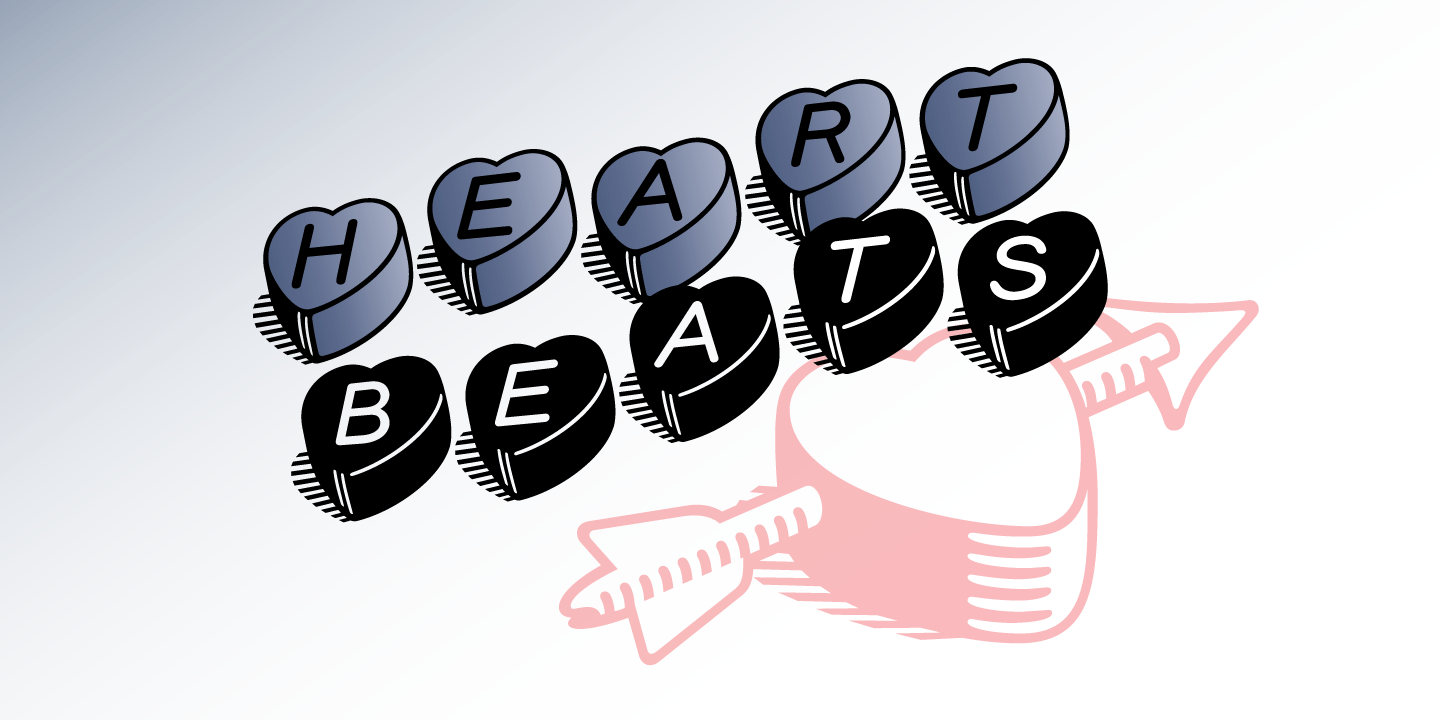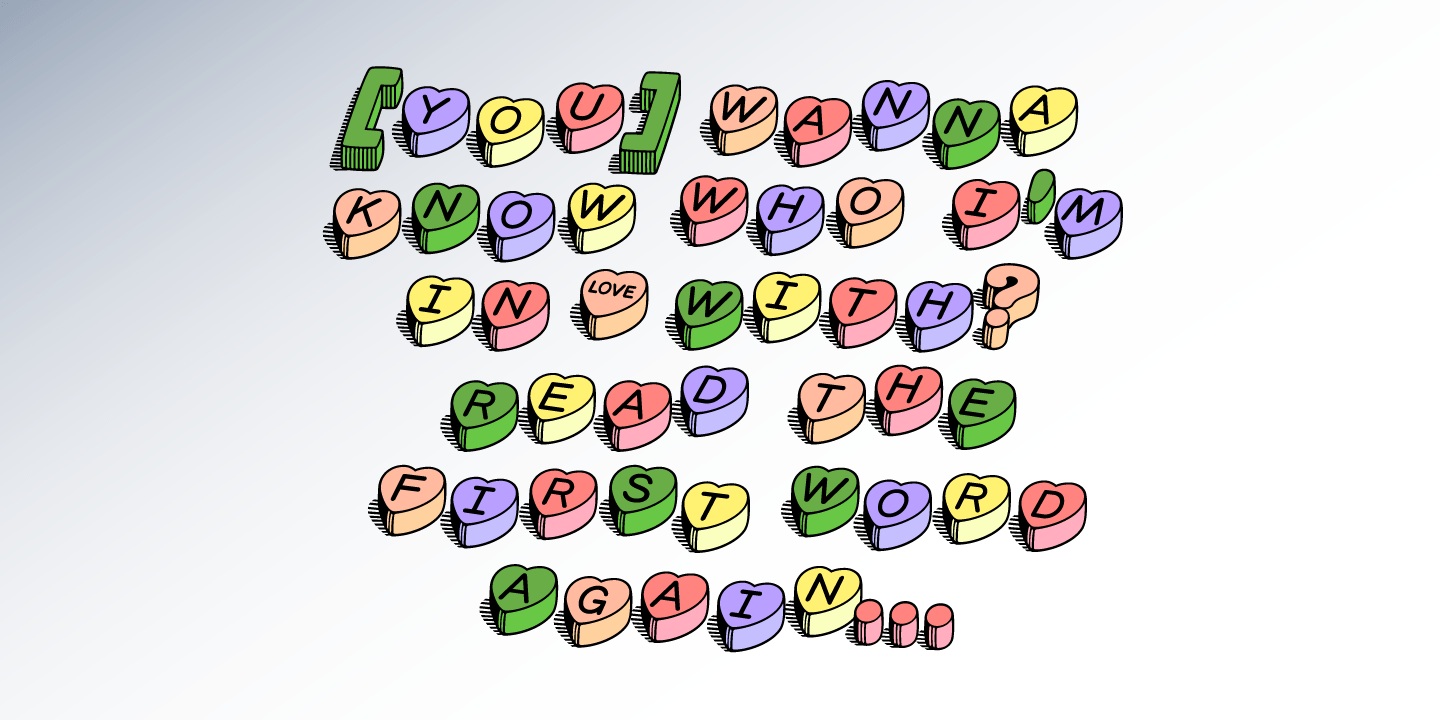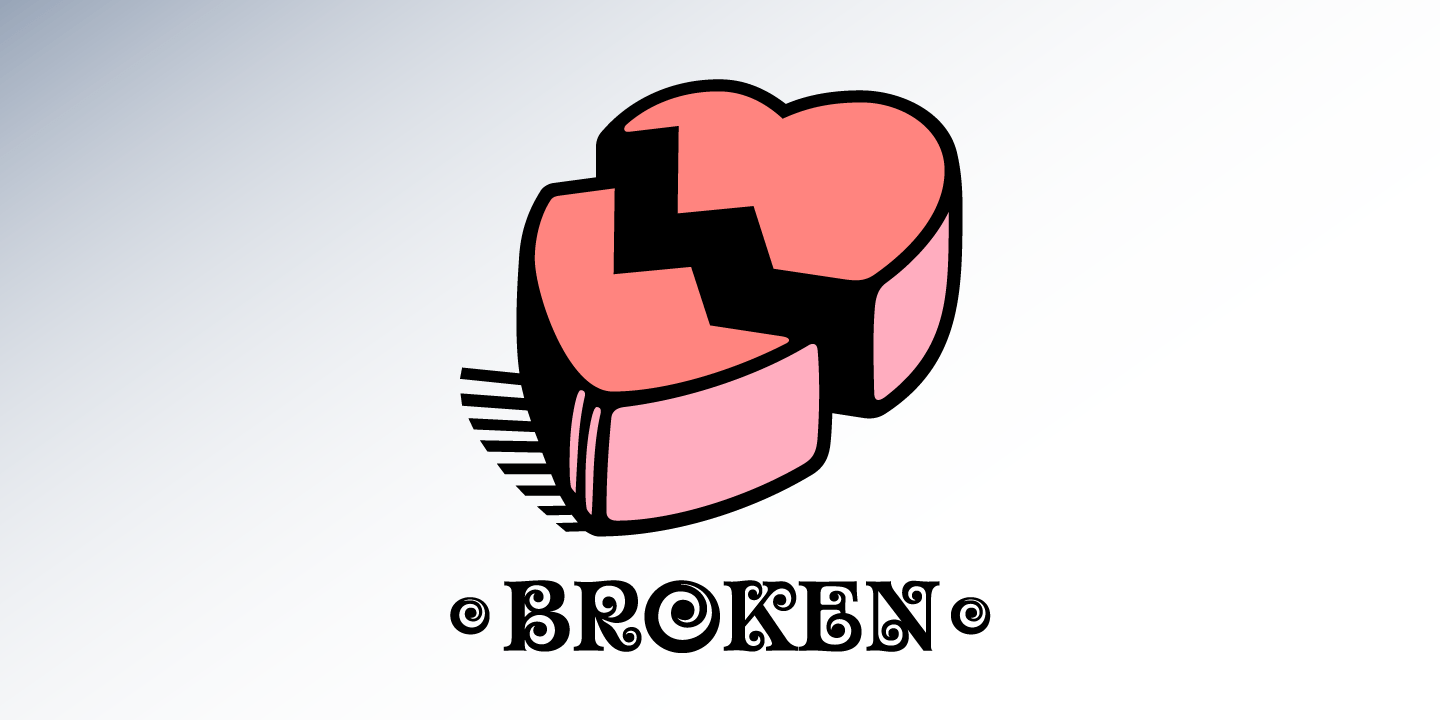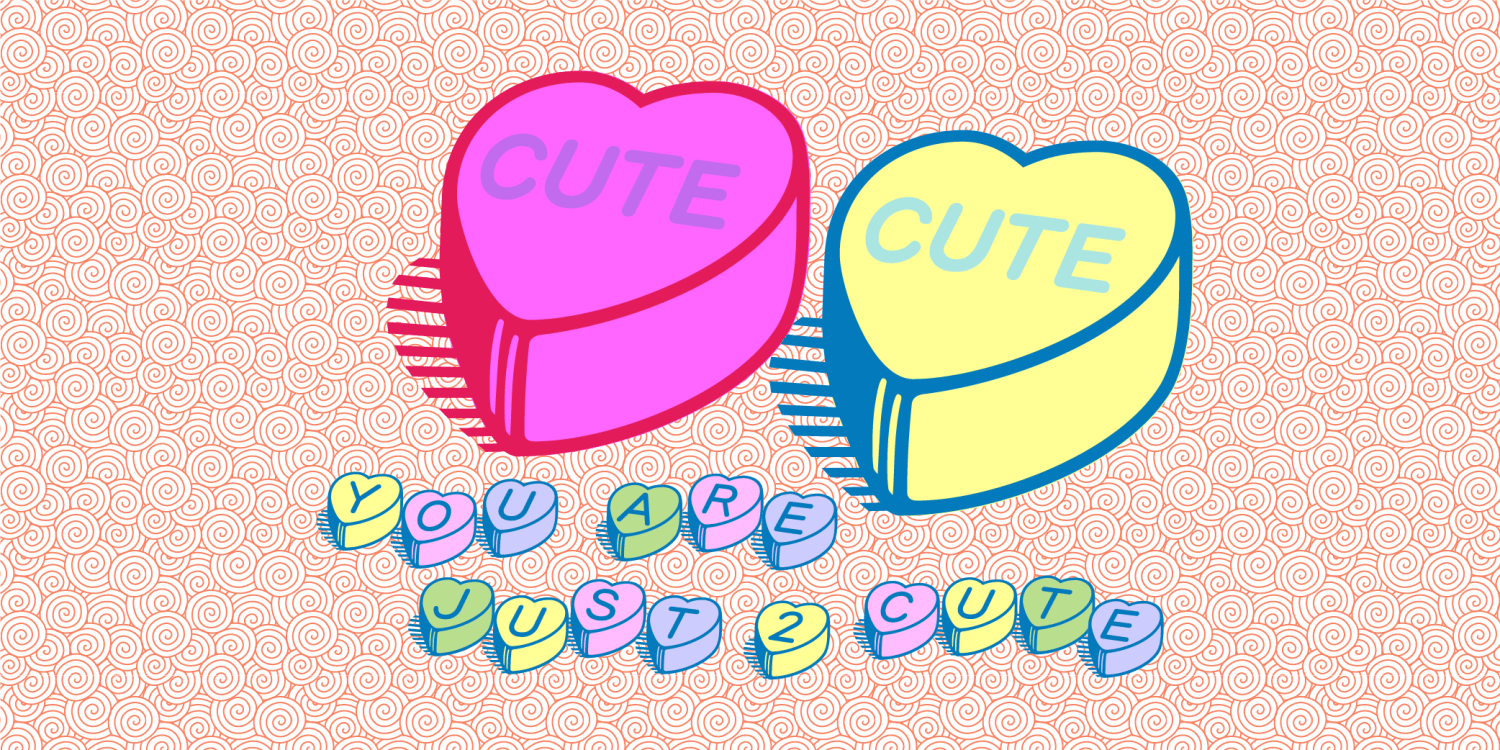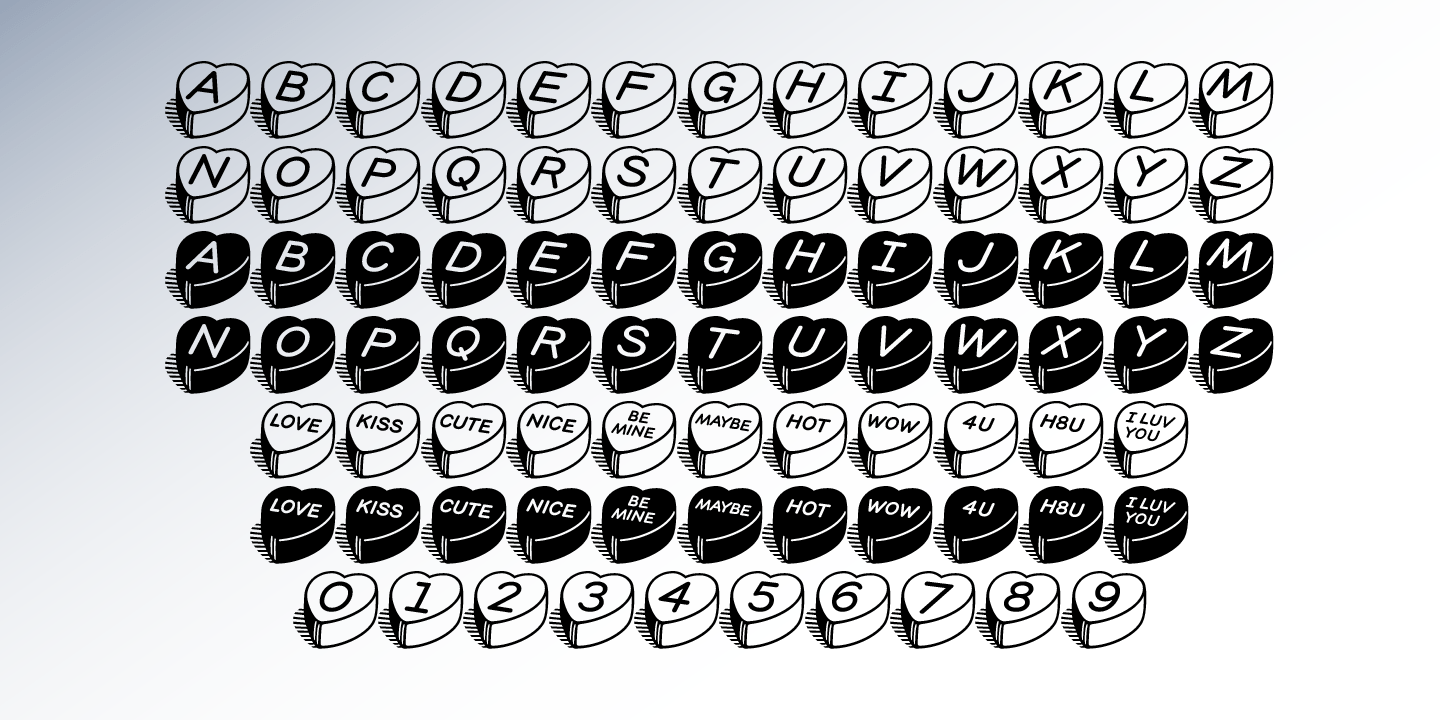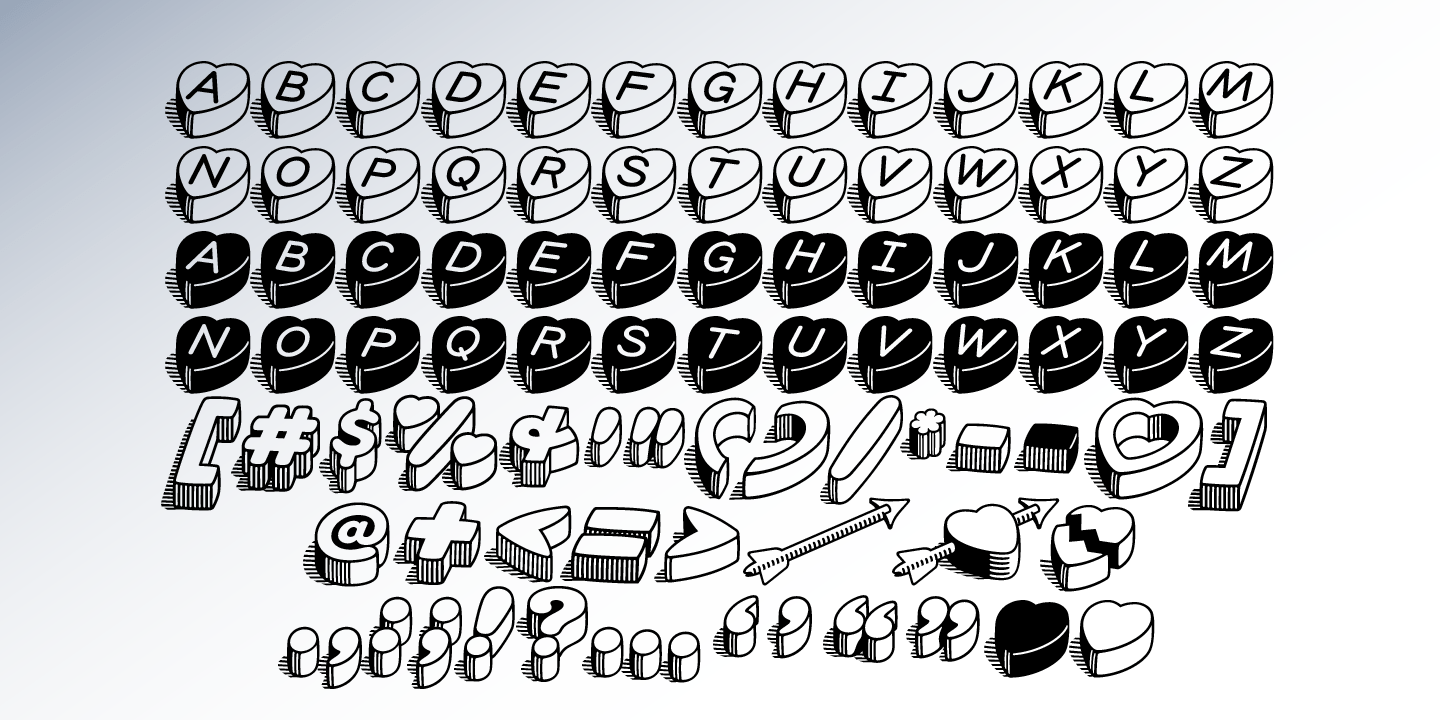
HeartBeats
Font Family by BluHead Studio
Now, we may be posting this font close to Valentines Day, but really, it's appropriate for any occasion where you need to express your affections for that special person, and in a most unique fashion. HeartBeats, if used creatively, can actually increase the heart rate! So go ahead, take that leap you've been thinking about and do it in a HeartBeats!